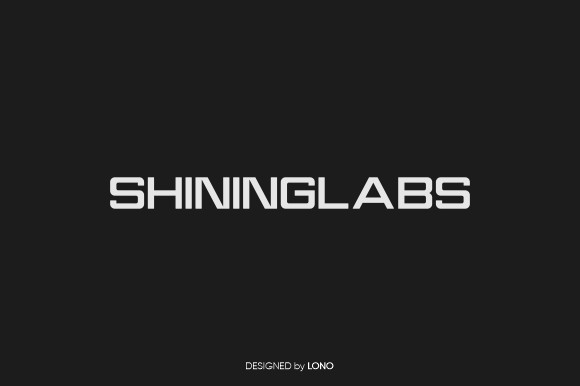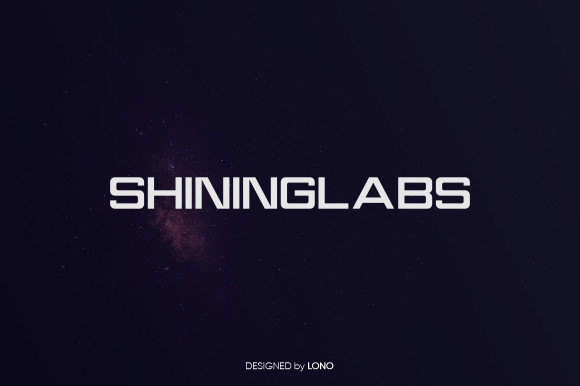
Shininglabs Font
Shininglabs is a modern, timeless and elegant sans serif font with a unique style. It will elevate any design project to the highest level.